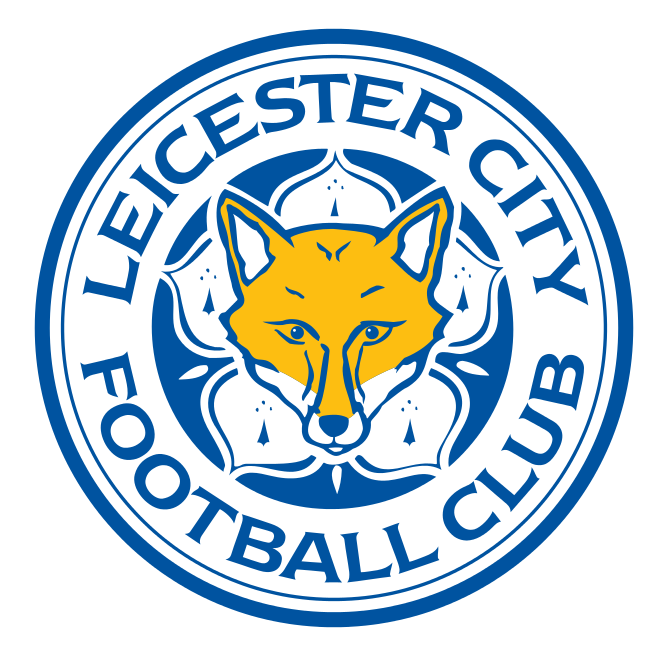
Leicester City FC Font
Fonts in UseLeicester City Football Club is a professional football club based in Leicester, England, known for its remarkable Premier League title win in 2016 and its consistent presence in the top-flight of English football.
Leicester City FC's logo features the use of ITC Newtext, an inscribed serif font designed by Ray Baker, known for its generous and legible glyphs, making it suitable for setting text in multiple lines on a page.